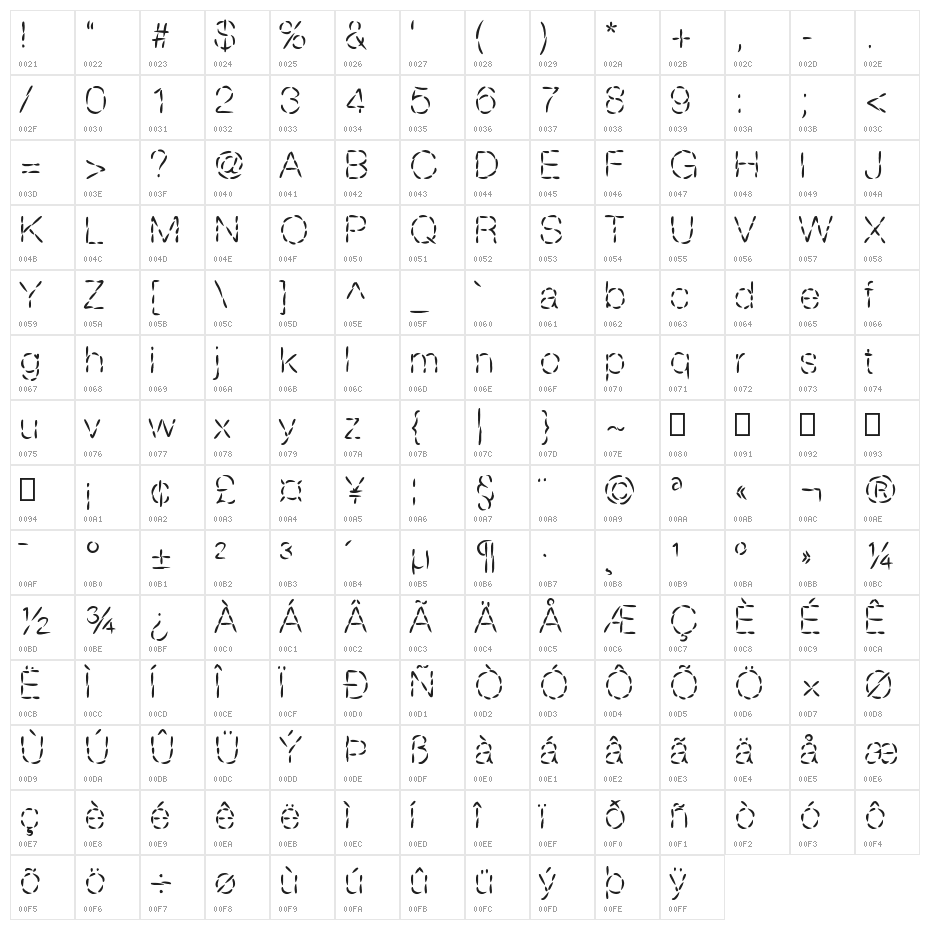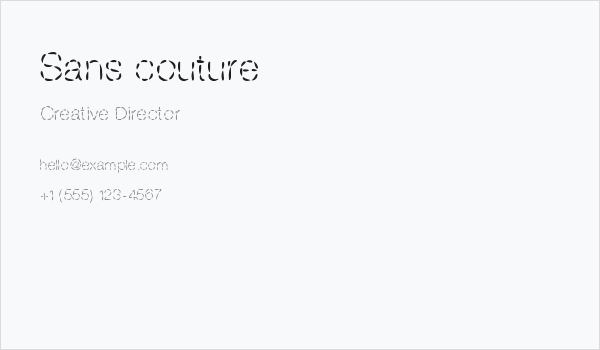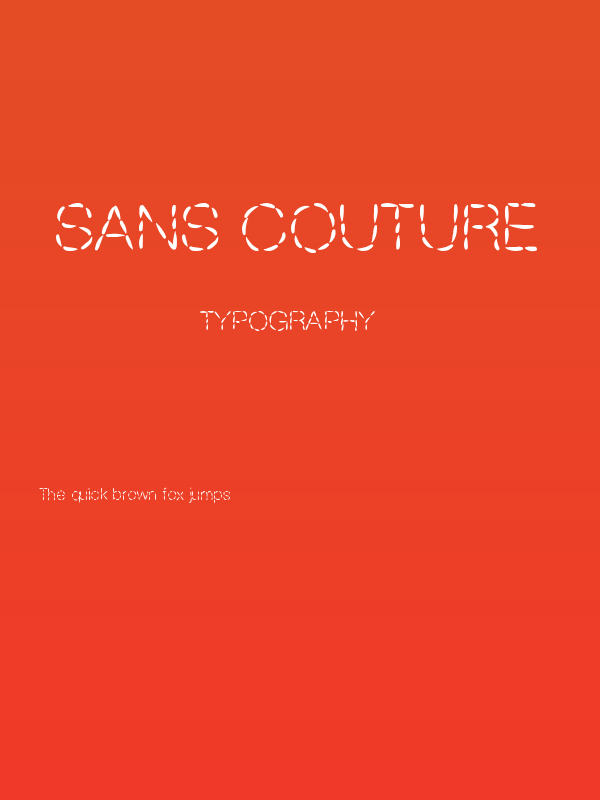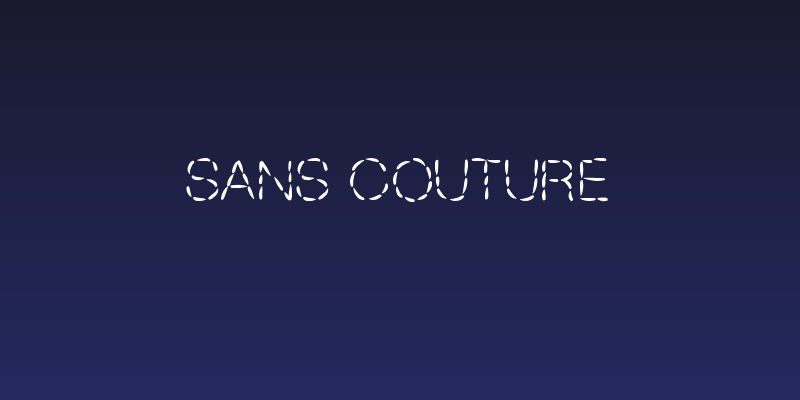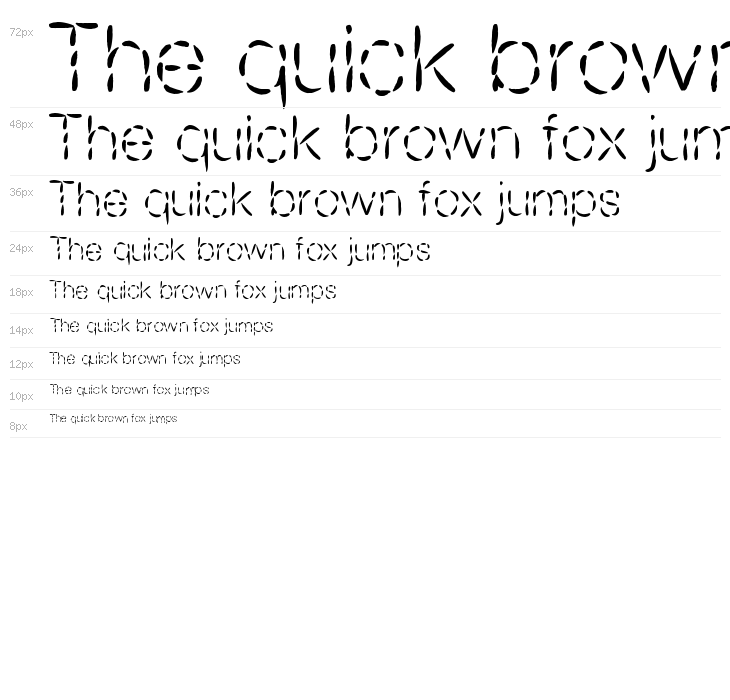
Sans couture Font
Sans couture Description
This font features a unique, decorative style characterized by its cut-out, stencil-like appearance. Each character is composed of segments that create a sense of movement and modernity. The uppercase and lowercase letters maintain a consistent design, with rounded edges and a playful yet sophisticated look. The numerals and special characters follow the same segmented pattern, ensuring uniformity across the entire typeface. This font's distinct style makes it stand out, offering a creative twist on traditional sans-serif fonts. Its design is both eye-catching and versatile, suitable for various creative applications.
Proposed ProjectsIdeal for branding, posters, fashion magazines, and creative advertising campaigns.